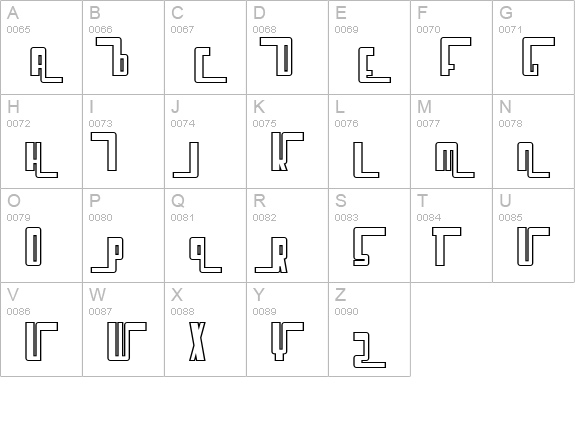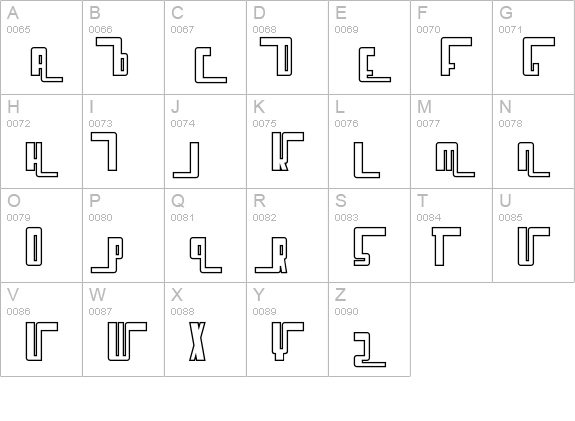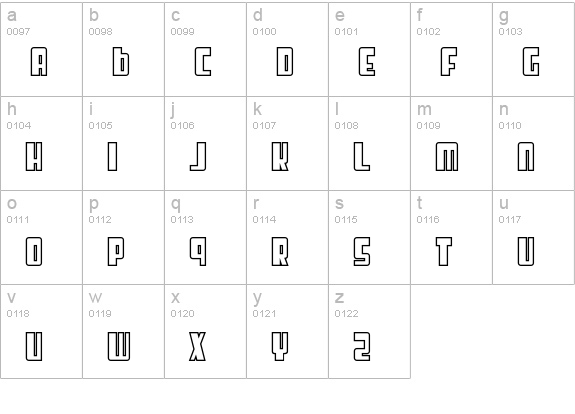
SF Cosmic Age Outline Font Details
SF Cosmic Age Outline font is a stunning display typeface that takes you on an intergalactic journey through time and space. With its sleek and futuristic design, this font is perfect for creating captivating headlines, logos, and posters that are out of this world. The SF Cosmic Age Outline font features intricate lines and geometric shapes that give it a bold and dynamic look. Every character is meticulously crafted to embody the essence of cosmic energy, making it a truly unique and eye-catching choice for any design project. What makes SF Cosmic Age Outline font even more amazing is that it is available for free! Yes, you read that right. This incredible font can be downloaded at FontsMarket.com without any cost. Whether you are a professional designer or a hobbyist, you can now access this extraordinary font and bring your creative visions to life without breaking the bank. With SF Cosmic Age Outline font, your designs will transcend the boundaries of time and space. Its versatility allows it to be used in a variety of applications, from digital artwork to print media. The bold and distinctive nature of this font will instantly grab attention and leave a lasting impression on your audience. So why wait? Download SF Cosmic Age Outline font now from FontsMarket.com and let your imagination soar to new heights. Whether you are designing a futuristic poster, a sci-fi book cover, or a cosmic-themed website, this font is sure to elevate your creations to a whole new dimension. Experience the cosmic age like never before with SF Cosmic Age Outline font, freely available at FontsMarket.com.